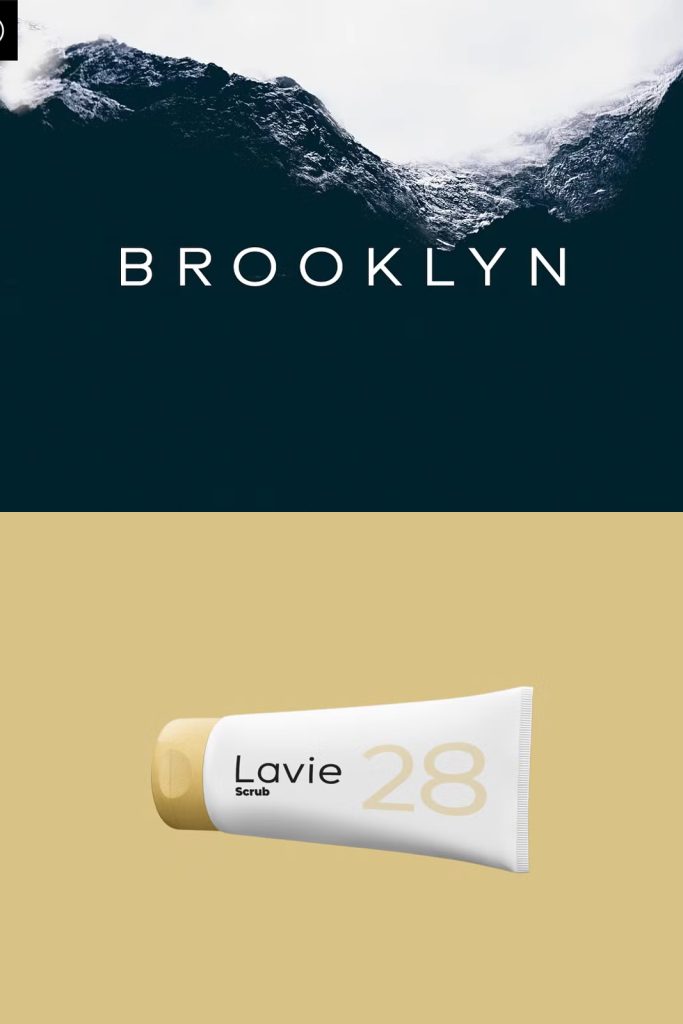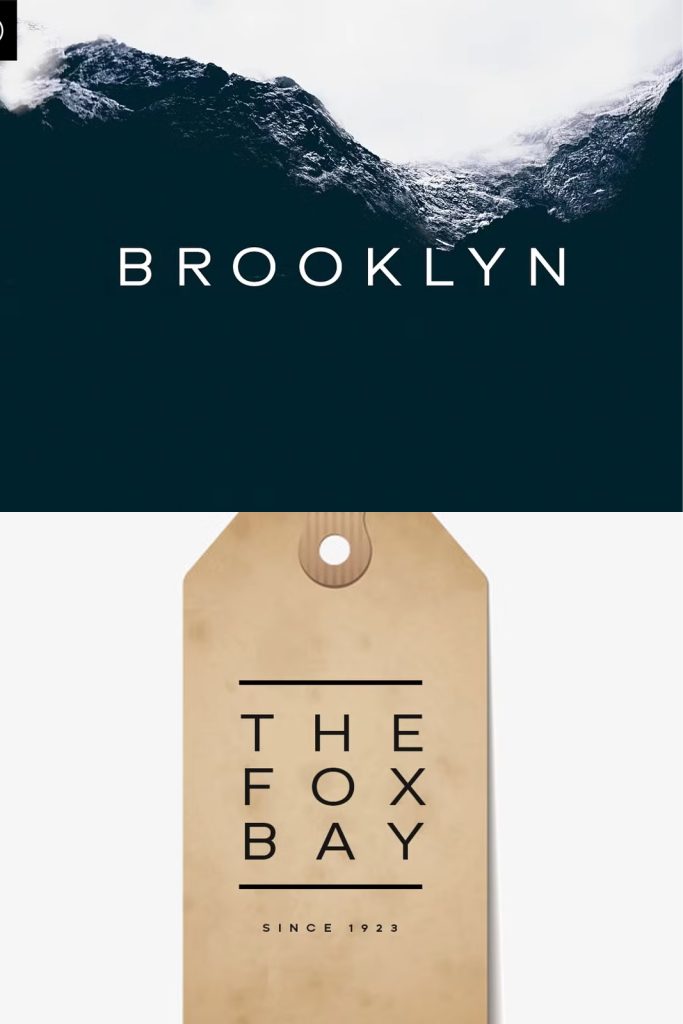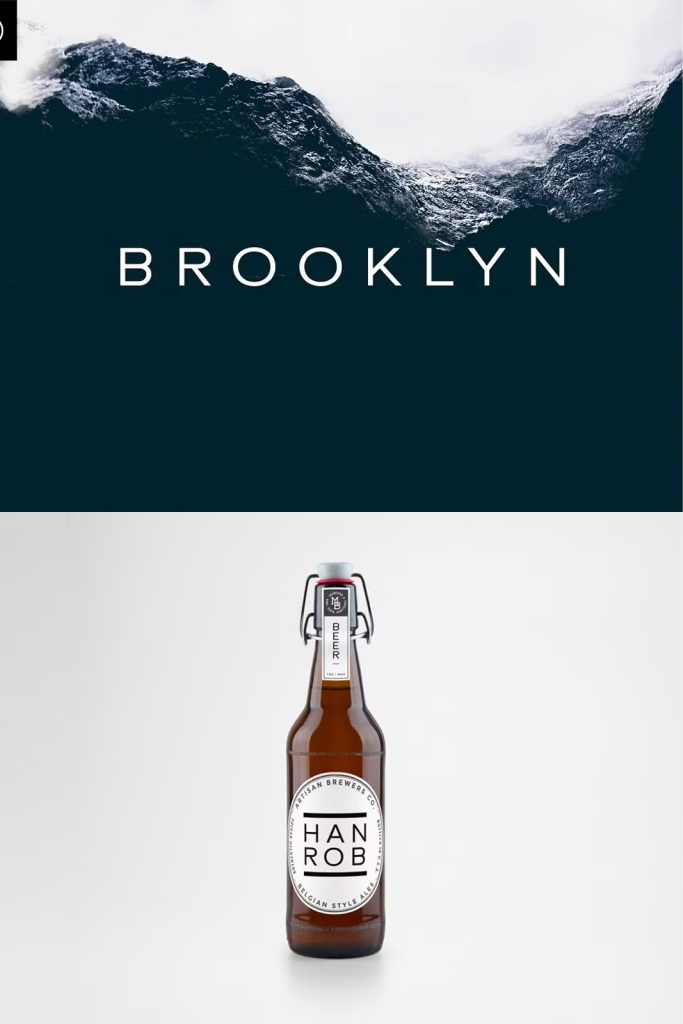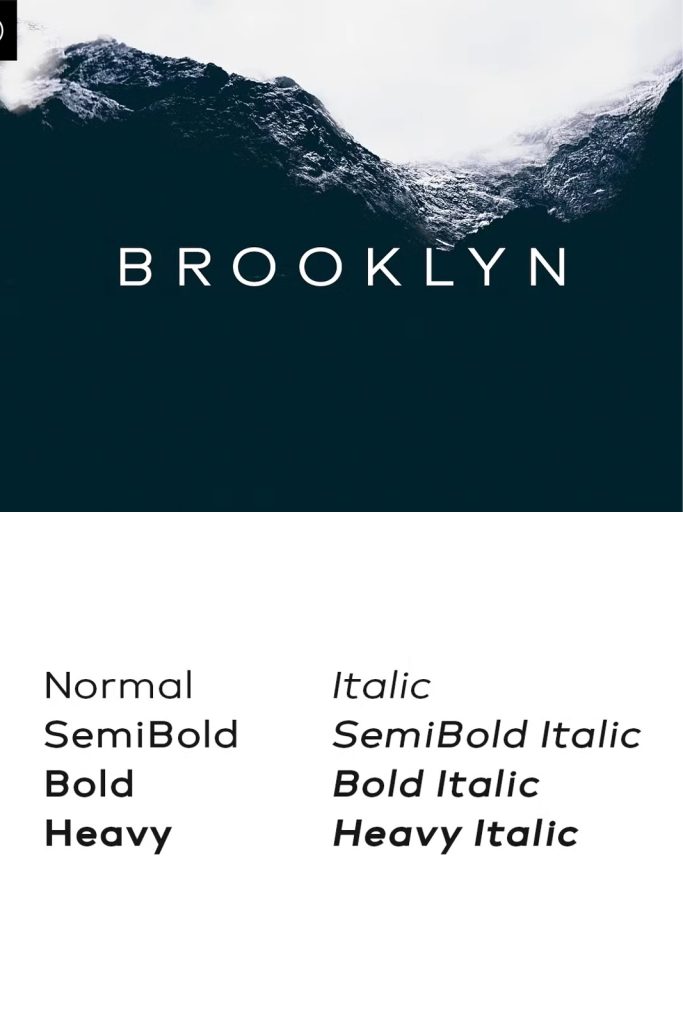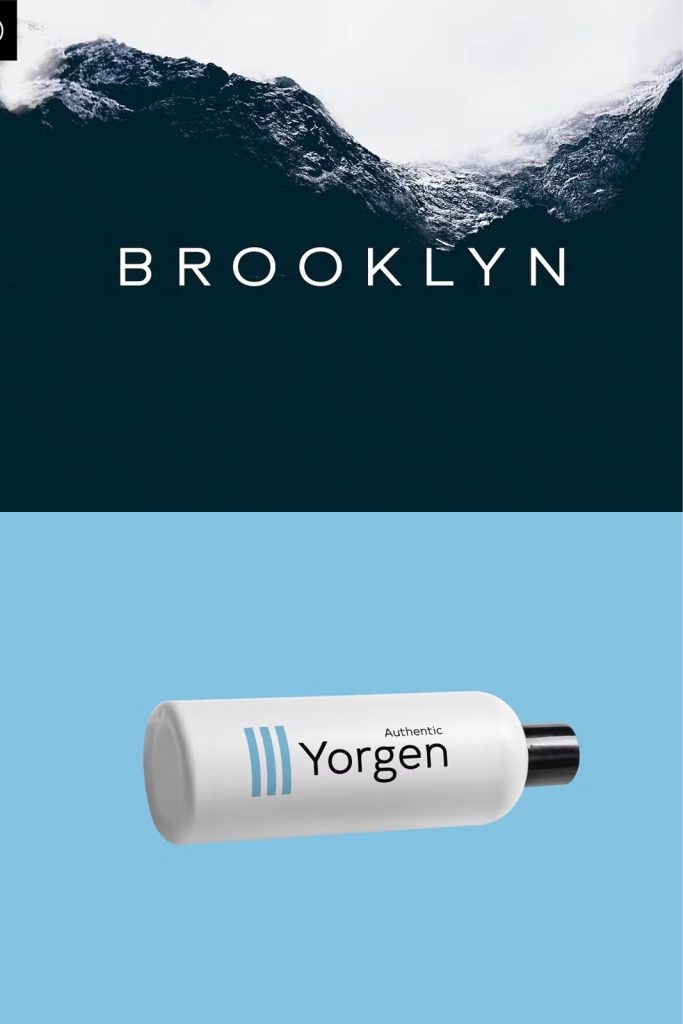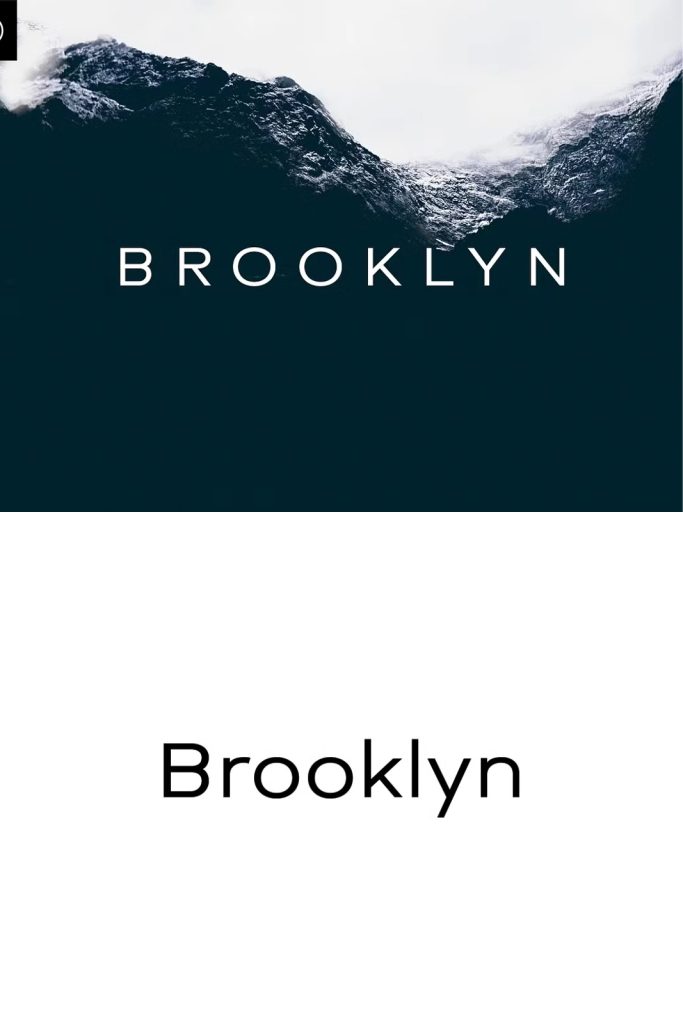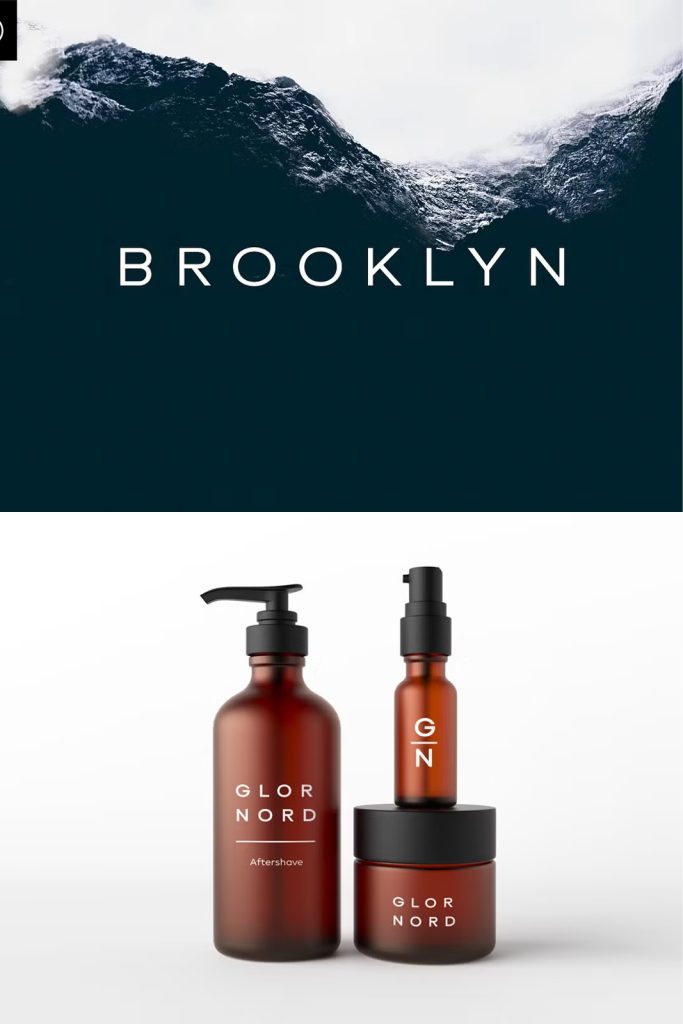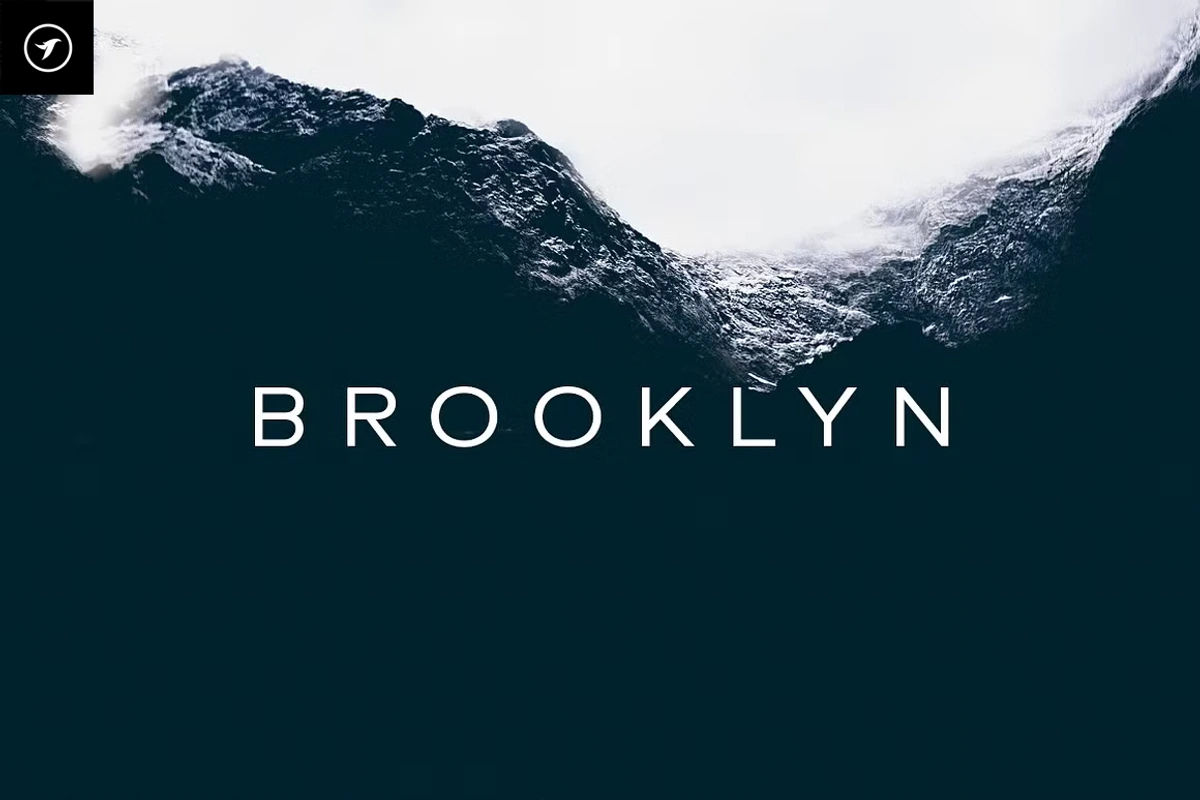
Brooklyn: A Modern Sans-Serif Typeface Built for Clean and Minimal Design
Brooklyn is a modern sans-serif typeface inspired by classic geometric typography and refined through a contemporary design lens. It is crafted to deliver clarity, balance, and visual confidence while preserving the simplicity that defines great minimalist design. Brooklyn focuses on clean forms, consistent proportions, and precise spacing, making it a reliable choice for designers who want typography to feel modern, intentional, and effortlessly stylish.
Inspired by Classic Geometric Typography
Brooklyn takes its foundation from timeless geometric typefaces that have shaped modern design for decades. These influences appear in its structured letterforms, balanced curves, and clear vertical and horizontal strokes. Every character is built with symmetry and logic, giving the font a calm and confident presence.
Rather than copying historical designs, Brooklyn refines geometric principles to meet today’s visual standards. The result is a typeface that feels familiar yet current, allowing designers to reference typographic tradition while delivering a fresh and contemporary aesthetic.
Minimalism Executed at Its Best
Minimalism is at the core of Brooklyn’s design philosophy. The typeface avoids unnecessary decoration and focuses on what matters most: readability, structure, and visual harmony. Clean lines and consistent stroke widths help text appear crisp and uncluttered, allowing content to speak clearly and confidently.
Brooklyn excels in layouts where space, balance, and simplicity play a central role. Its understated style supports modern design trends without overpowering other visual elements, making it ideal for refined and elegant compositions.
Perfect for Eye-Catching Headlines
Brooklyn truly shines when used in headlines. Its strong geometric forms and clean construction give headlines a confident and polished appearance. By adding generous letter spacing, designers can unlock an even more striking visual impact, creating headlines that feel premium and editorial.
This approach works especially well in fashion web stores, lifestyle websites, and creative portfolios where typography plays a key role in shaping the brand’s identity. Brooklyn allows headlines to feel bold and modern while maintaining a sense of restraint and sophistication.
Ideal for Fashion, Portfolio, and Creative Websites
Fashion Web Stores and Editorial Layouts
Brooklyn fits seamlessly into fashion-focused digital spaces. Its clean and modern tone complements high-quality imagery and curated layouts commonly found in fashion web stores. Designers can use it for product titles, category headings, and promotional banners to create a cohesive and luxurious browsing experience.
The font’s geometric consistency helps maintain clarity across different screen sizes, ensuring that typography remains sharp and readable on both desktop and mobile devices.
Minimal Portfolio Websites
For portfolio websites, Brooklyn provides a professional and contemporary typographic voice. It supports designers, photographers, developers, and creatives who want their work to take center stage. The font’s minimal appearance enhances content without distraction, allowing visuals and ideas to shine.
Brooklyn helps portfolios feel intentional and well-structured, reinforcing a sense of confidence and attention to detail.
Create Stunning Logotypes and Branding Designs
Brooklyn is a strong choice for logotype and branding design. Its geometric structure ensures that logos appear balanced, modern, and highly legible. Whether used for wordmarks, brand names, or supporting typography, Brooklyn delivers a clean and timeless look that scales well across different applications.
The typeface adapts easily to various branding contexts, from tech startups and creative agencies to fashion labels and minimalist product brands. Its neutral yet confident personality allows it to integrate seamlessly into diverse visual identities.
Versatile Across Print and Digital Media
Brooklyn performs reliably across both print and digital formats. Its precise construction ensures consistent rendering at different sizes, making it suitable for large headlines, navigation menus, and branding materials. Designers can use it confidently in brochures, posters, websites, and social media graphics.
The font pairs effortlessly with other typefaces, especially light serif fonts or neutral sans-serifs used for body text. This flexibility allows designers to build complete and cohesive typography systems around Brooklyn.
Why Choose Brooklyn for Your Design Projects
Choosing Brooklyn means selecting a modern sans-serif typeface that delivers clarity, minimalism, and versatility. Its geometric inspiration, clean structure, and strong headline performance make it a valuable tool for designers focused on contemporary aesthetics. Brooklyn supports creative expression while maintaining discipline and balance.
If you are looking for a modern sans-serif typeface that enhances fashion websites, minimalist portfolios, and branding projects with confidence and precision, Brooklyn offers a refined and dependable solution for professional design work.